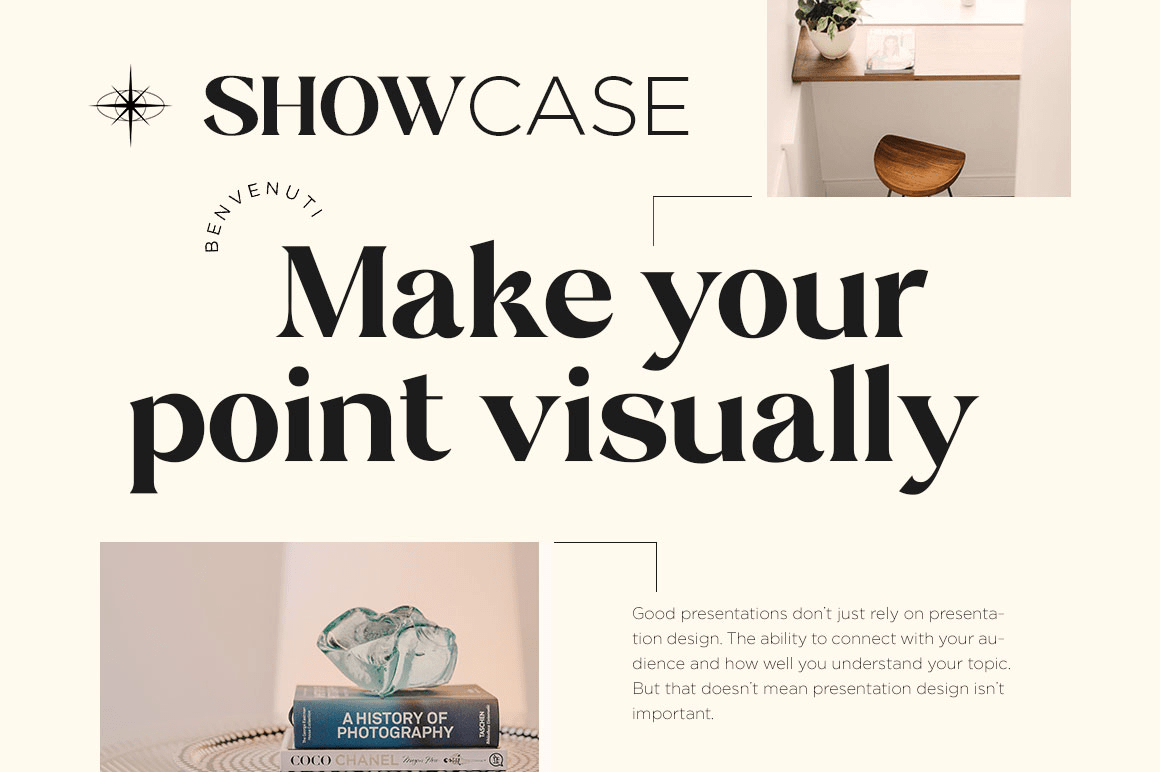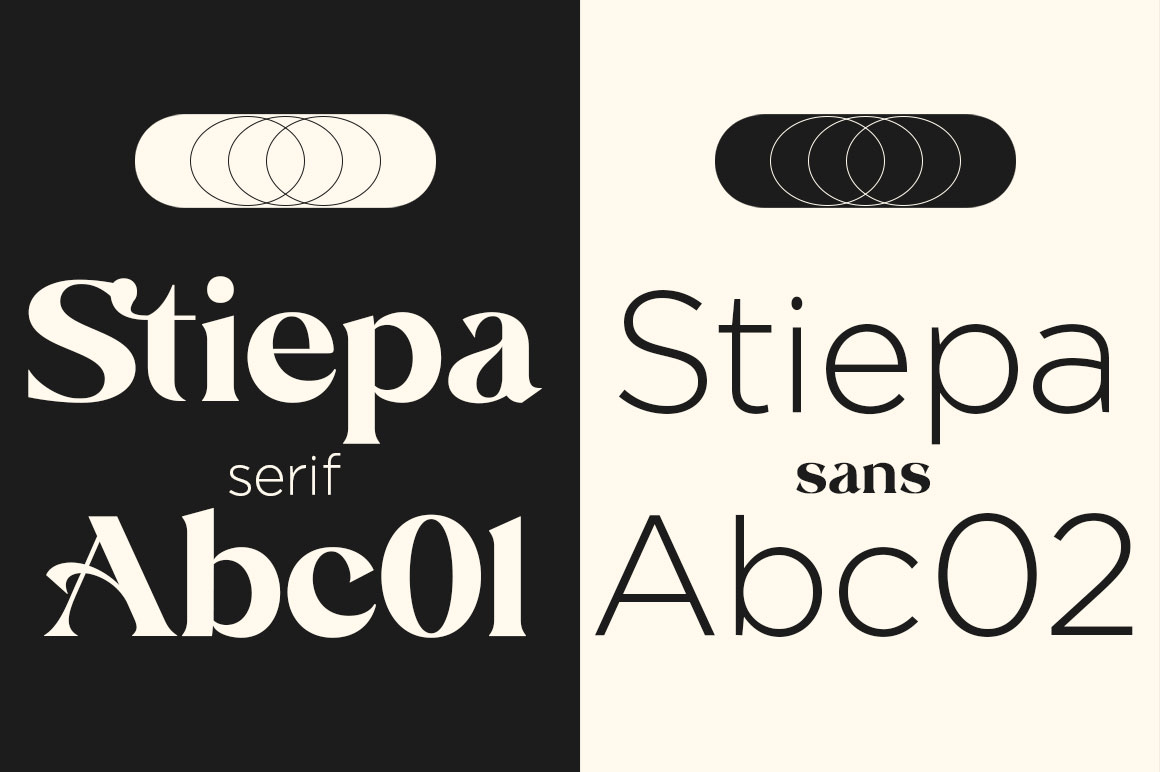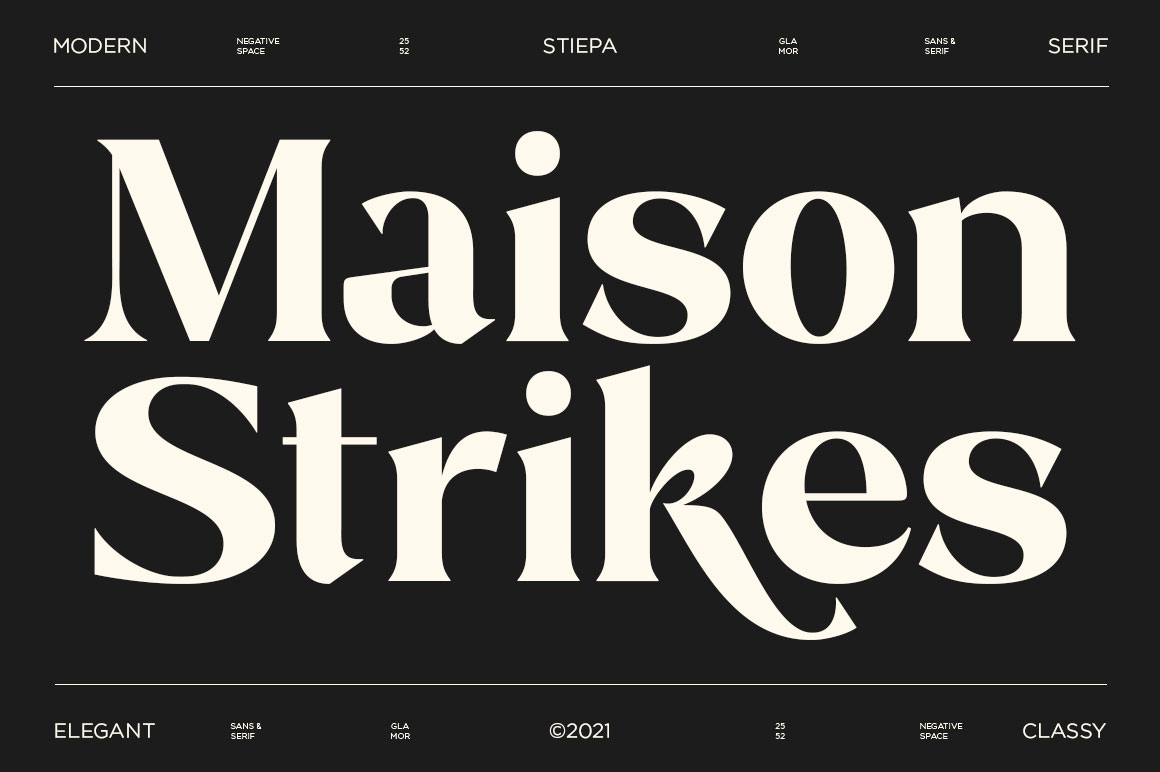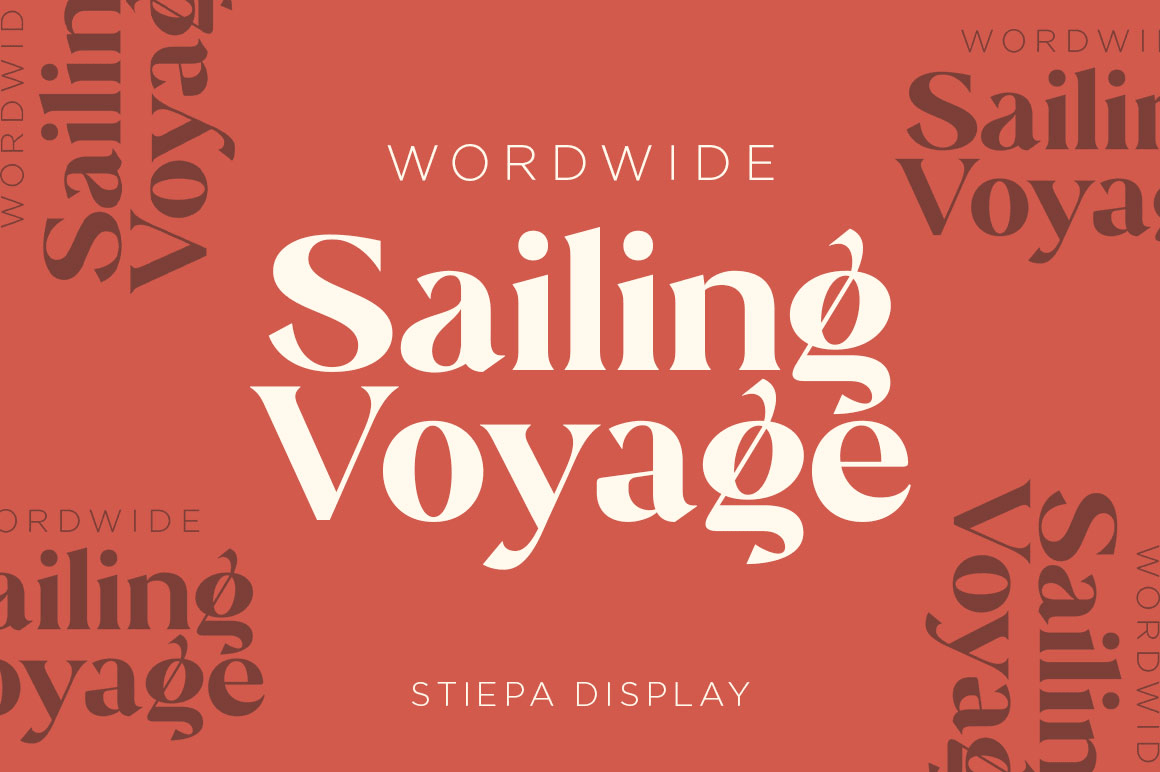
About Stiepa
Introducing our new collection of fonts – Stiepa is designed for fun, combining sans and serif so you can combine them to create the perfect typographic design. Stiepa is a classy and bold upper and lower case typeface that looks amazing in both large…